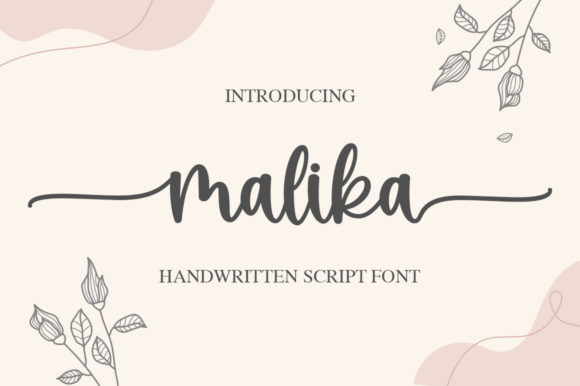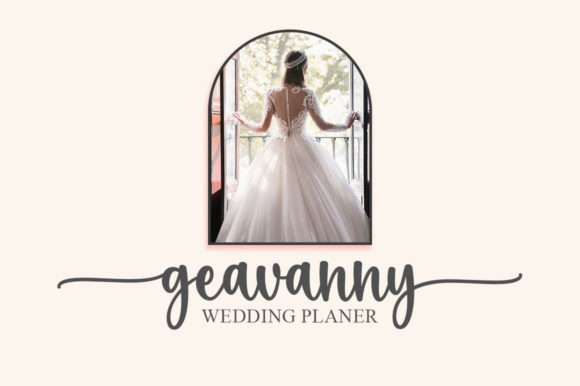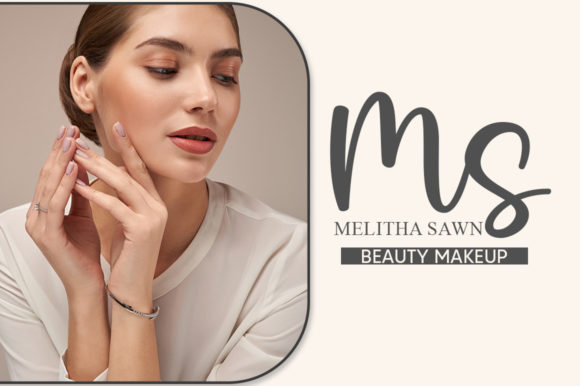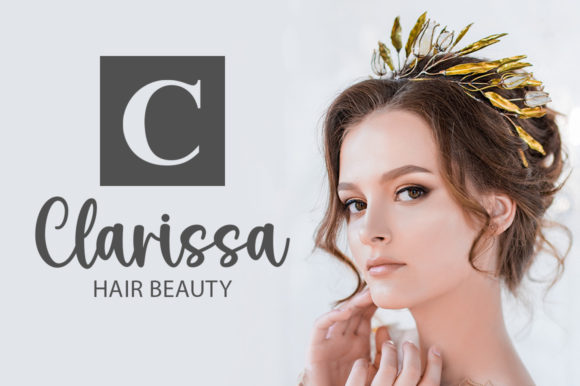
About Malika Font
Malika is a delicate and refined script font that emanates sophistication and elegance. Its stylish alternates and ligatures make this font the perfect match for any project.